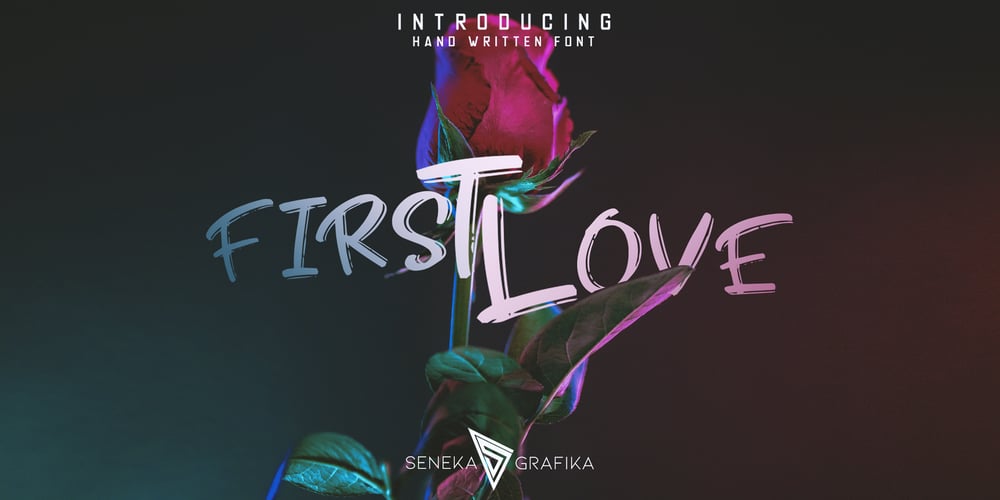
First Love Font Family was designed by Muhammad Helmi and published by Senekaligrafika. First Love contains 1 styles and family package options. “First love” has hard strokes and signature style that speak to instant romance sensation. Take your creative projects to the highest level with this font.“First love” will help you to create special and touching typographical design for your loving and romantic projects, for every day or the happiest day in life, wedding party, wedding card,valentine day, greeting card, headings, flyer, product packaging, book cover, printed quotes, logos, and many more. It is really universal and modern font. The owner of endless possibilities!